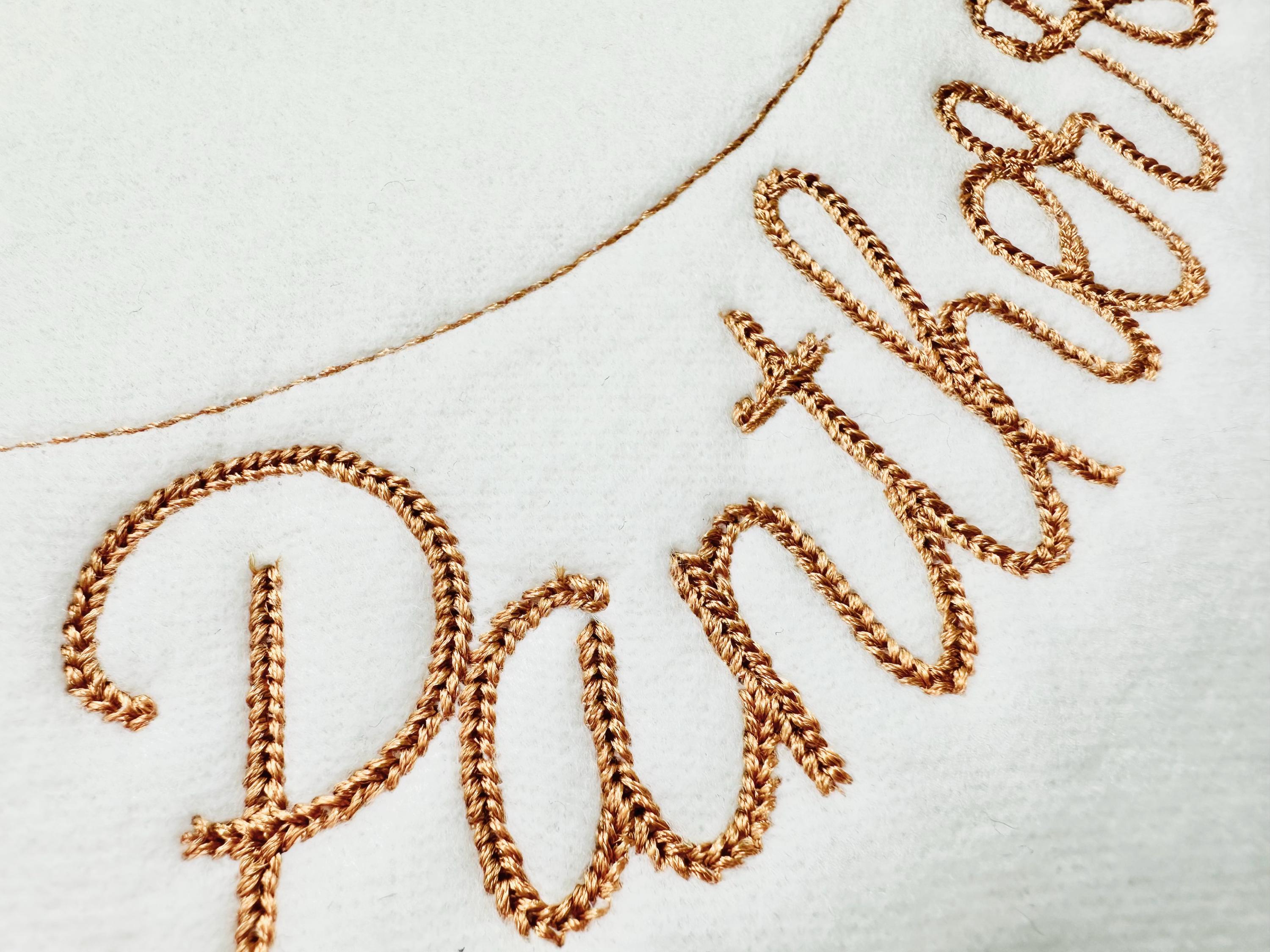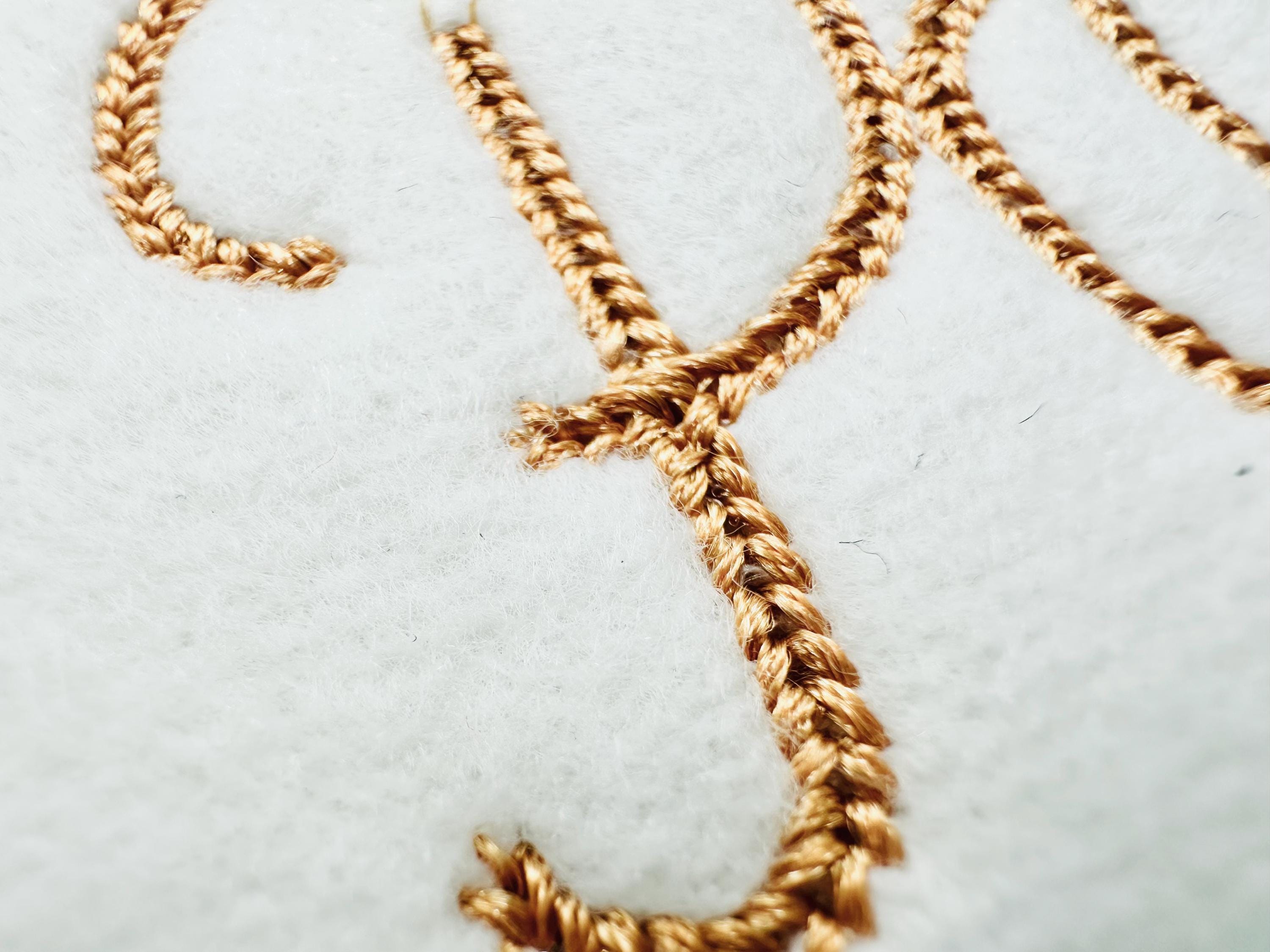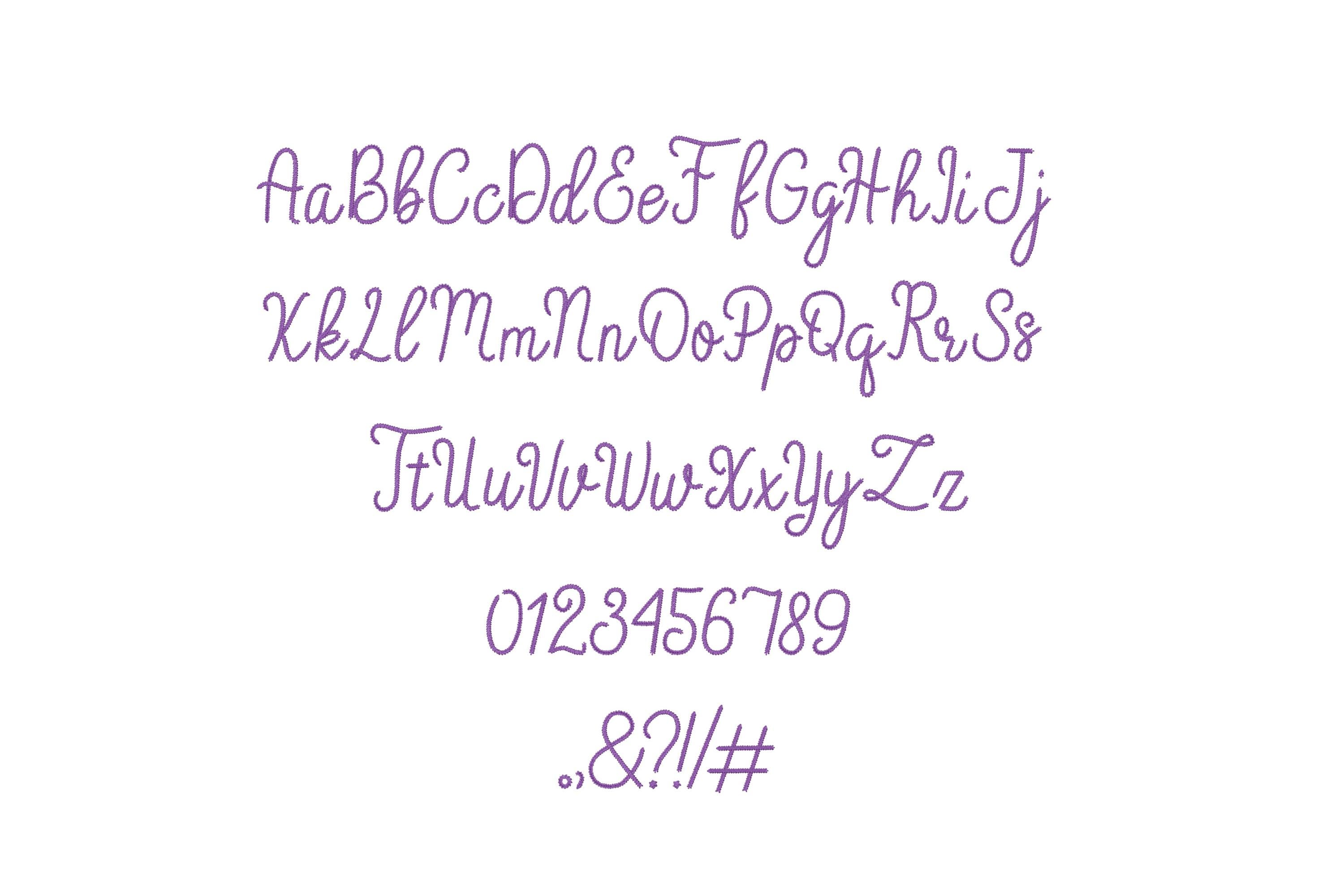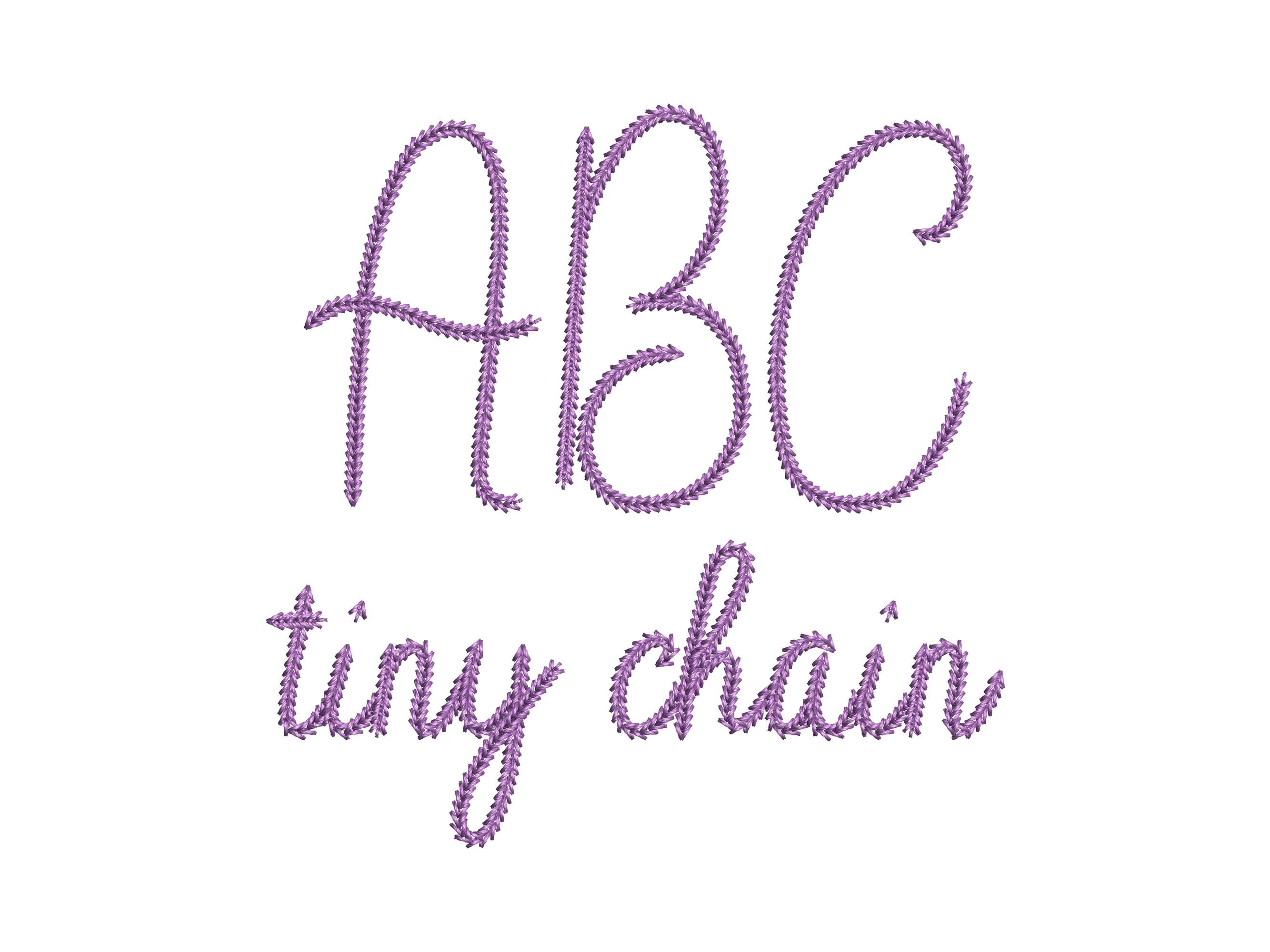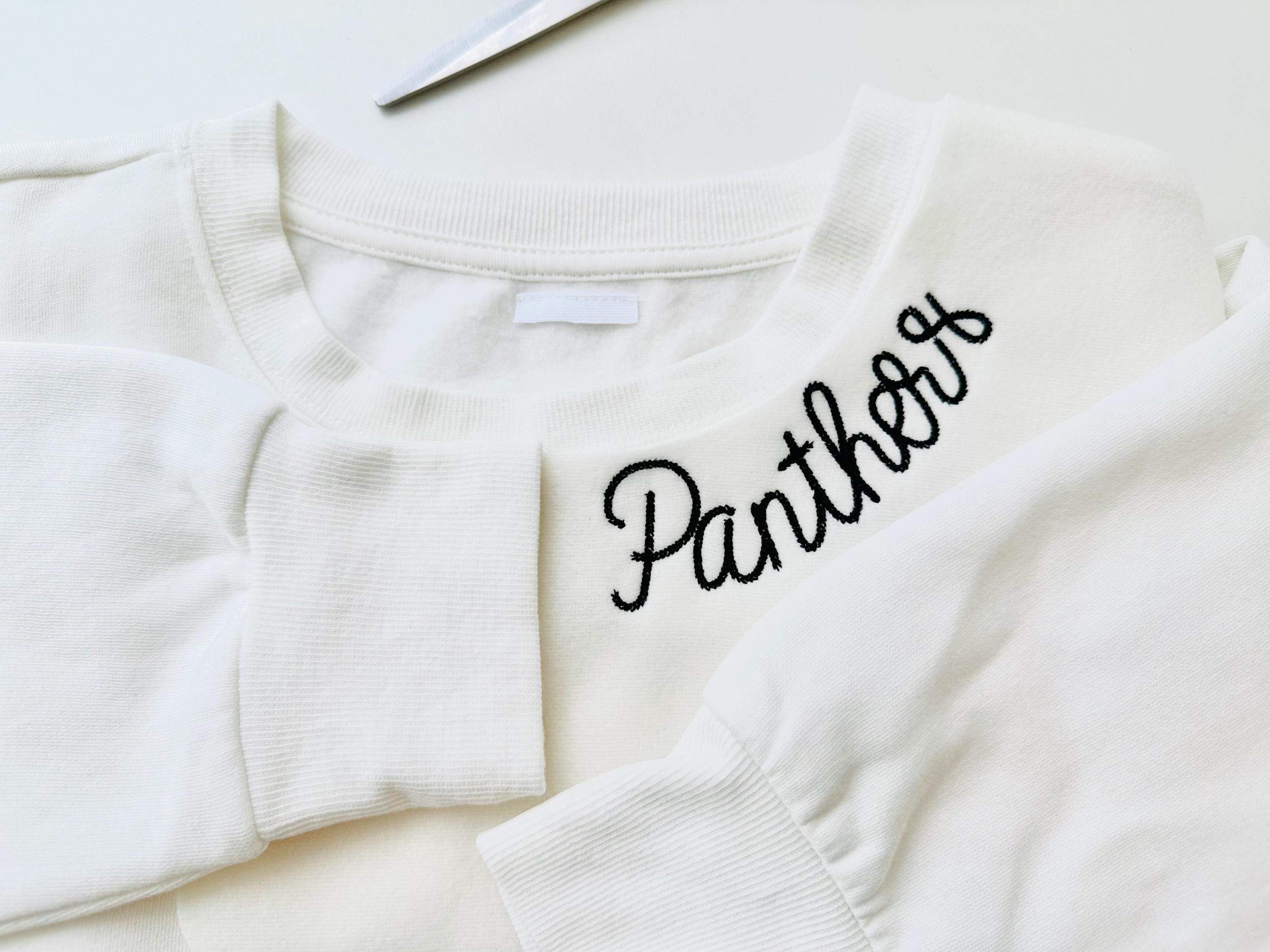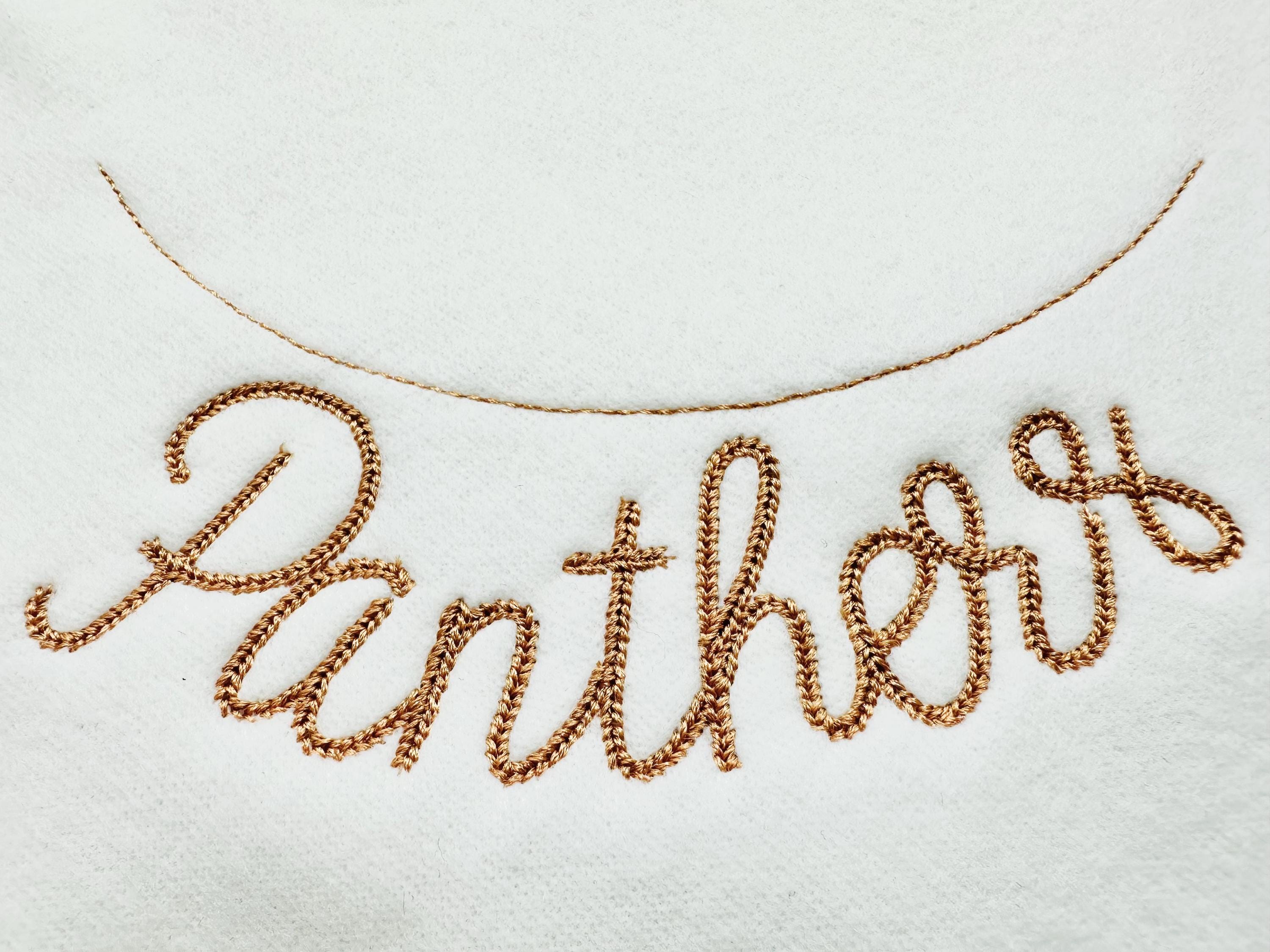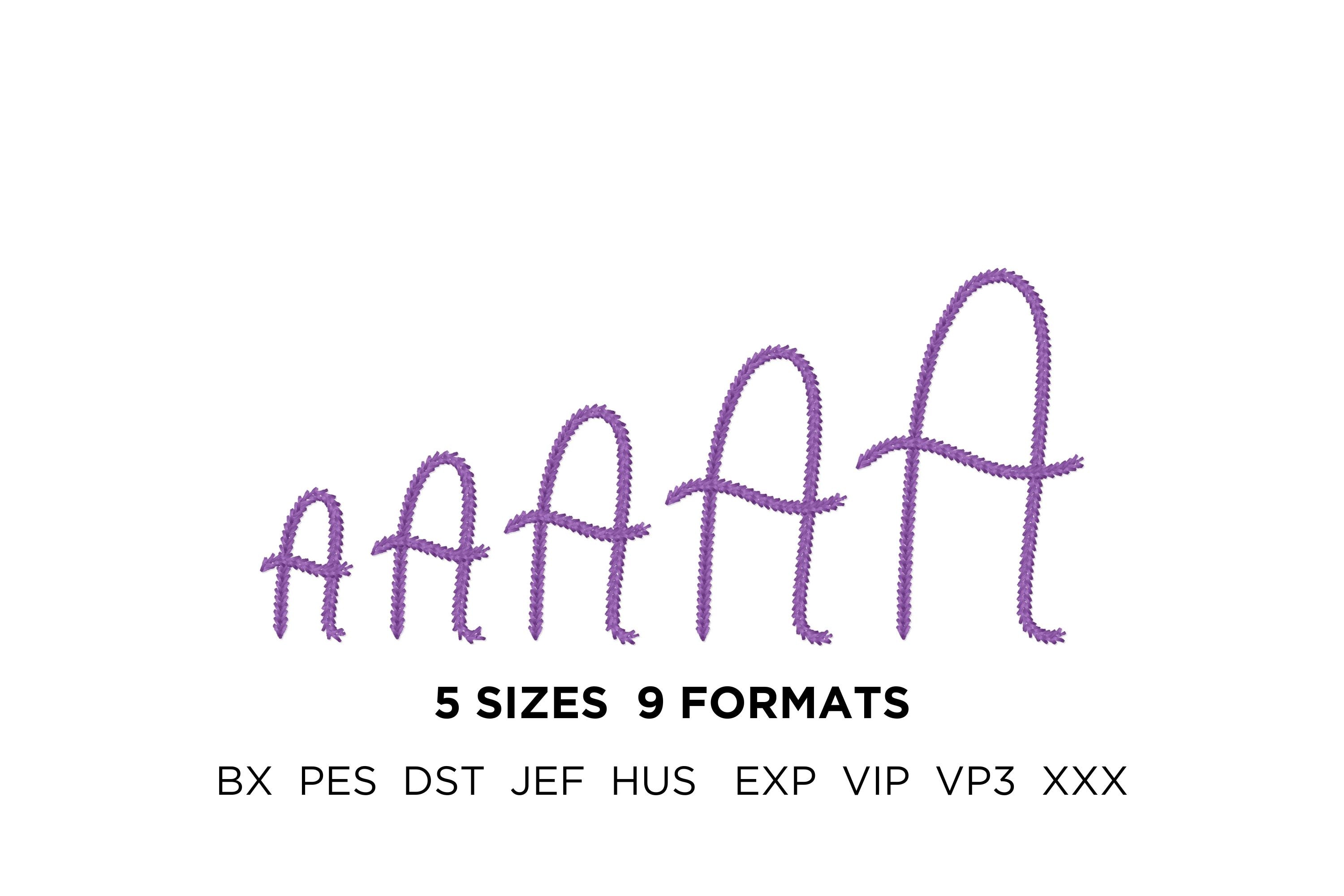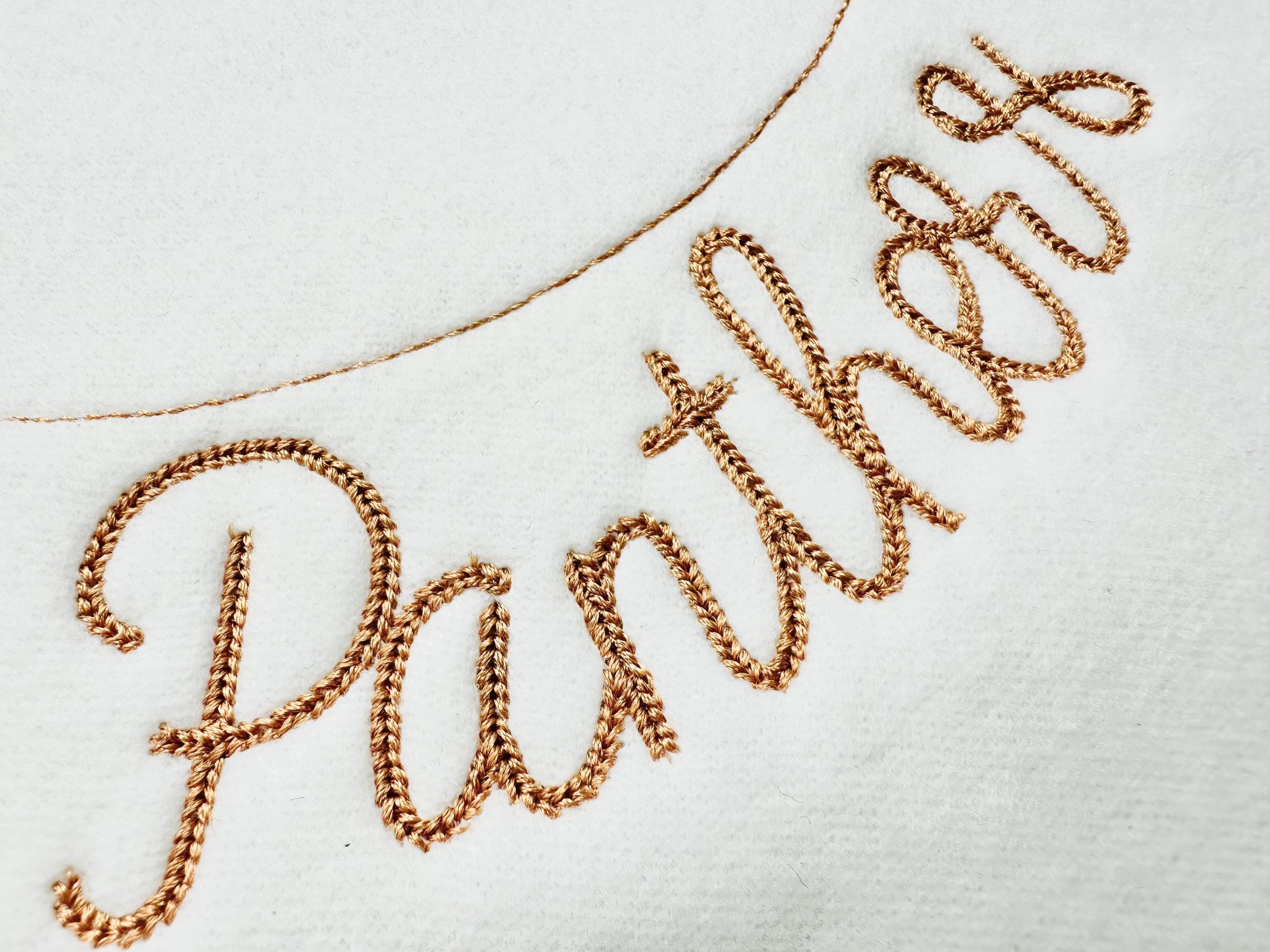
Tiny Chain FONT Sandy machine embroidery designs small sizes 1 up to 2.4 inch Neckline Font kids handwritten script alphabet letters and BX
Entire alphabet uppercase and lowercase letters Aa-Zz, numbers 0-9, and punctuation.